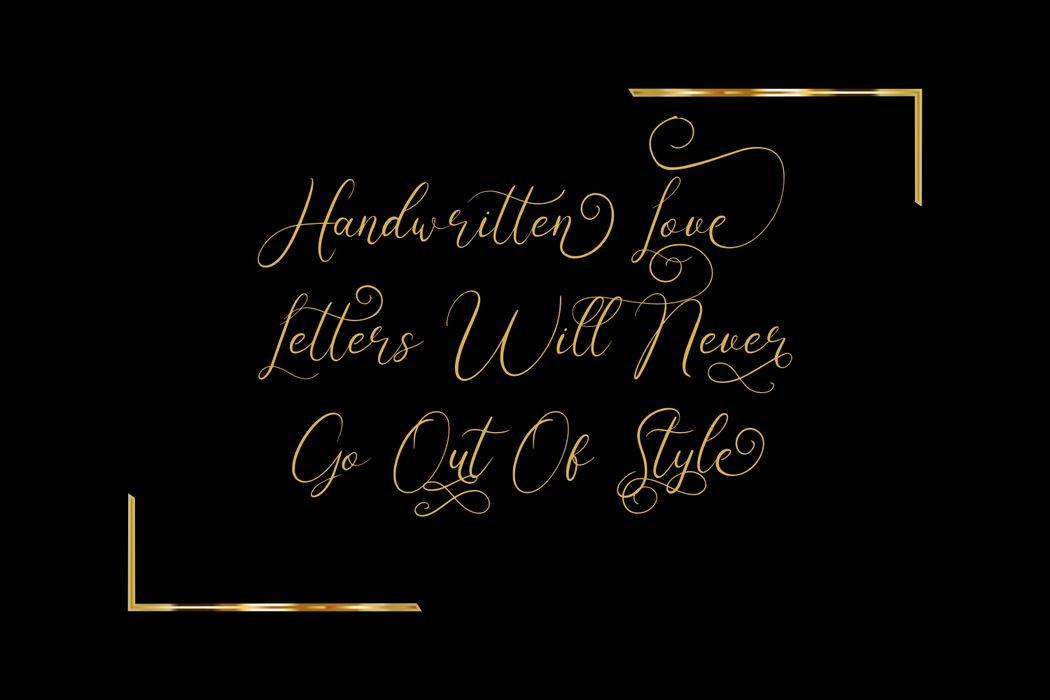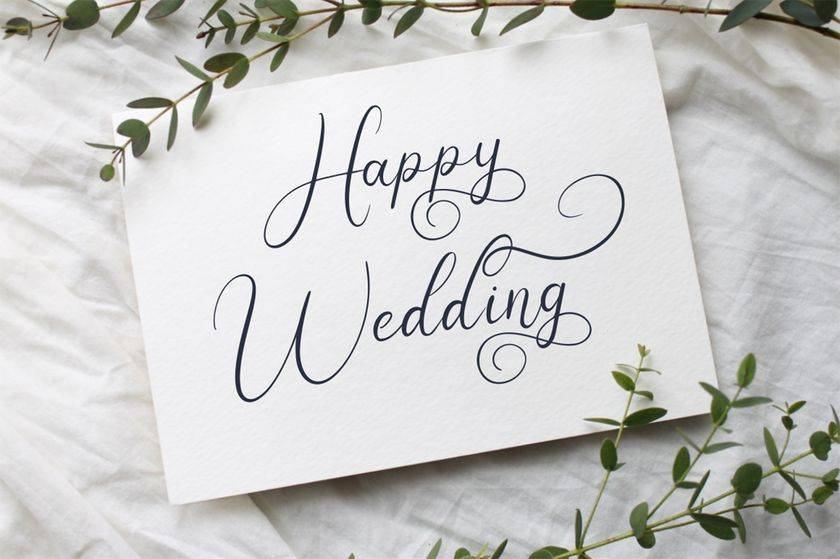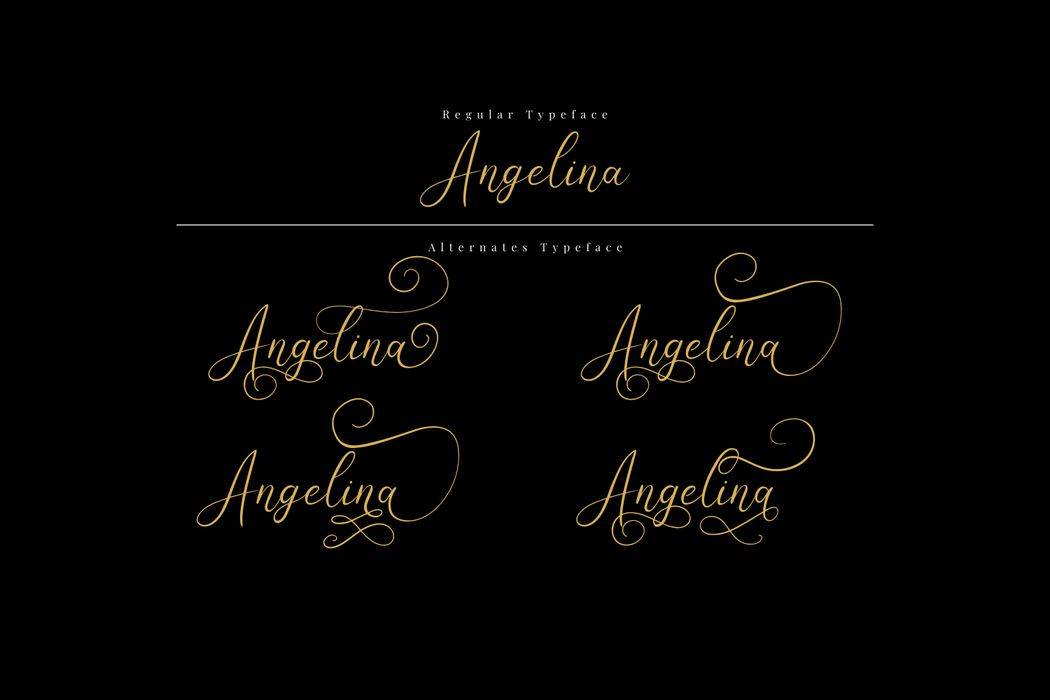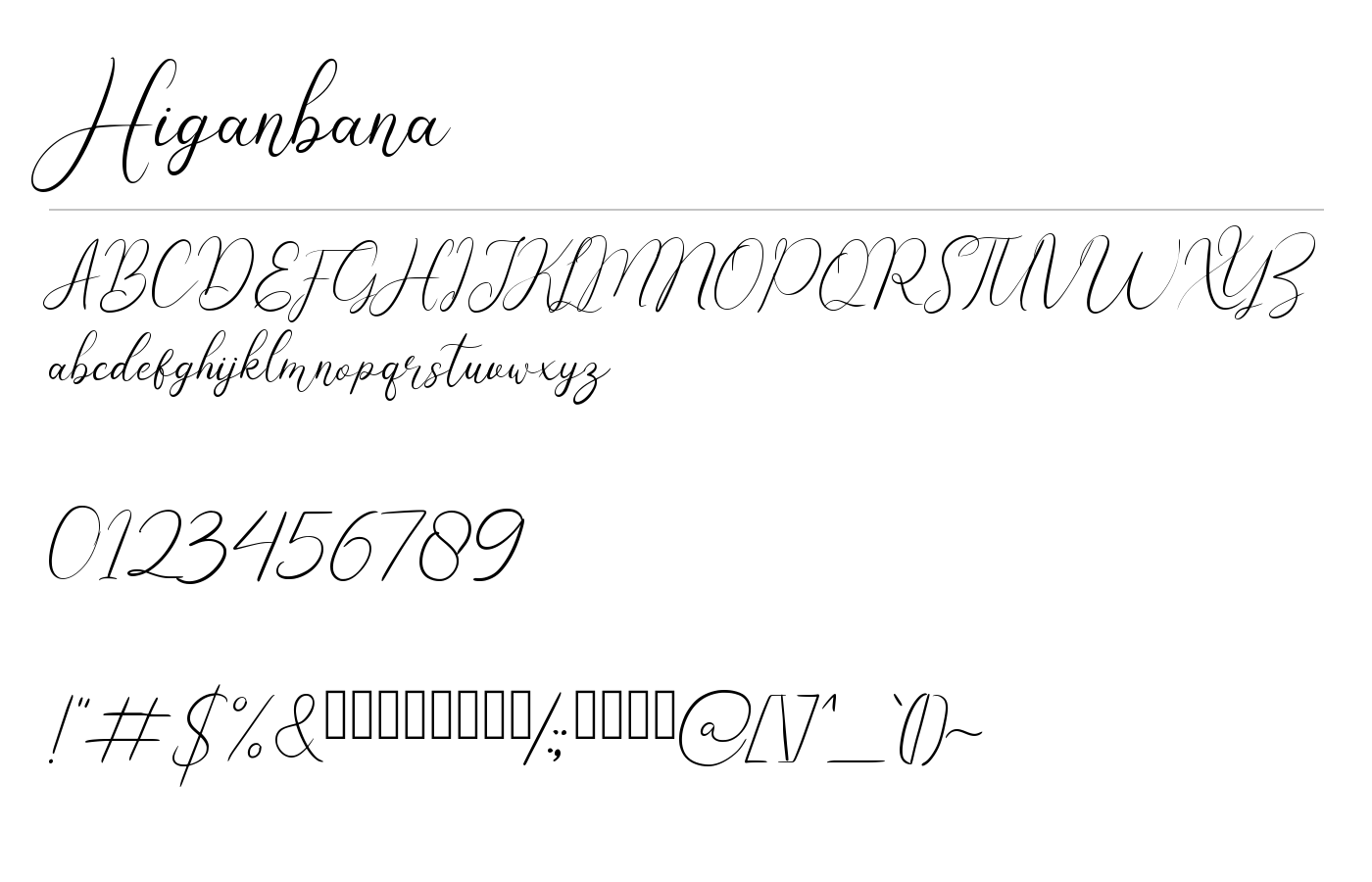
Higanbana is an elegant, thin script font with delicate, flowing strokes that evoke a sense of grace and sophistication. Its light weight and high-contrast lines make it ideal for refined branding, invitations, and headlines where a touch of luxury and femininity is desired. This font excels in designs that seek a modern yet classic handwritten feel, adding charm and personality without overwhelming the composition.
Higanbana Font
About Higanbana Font